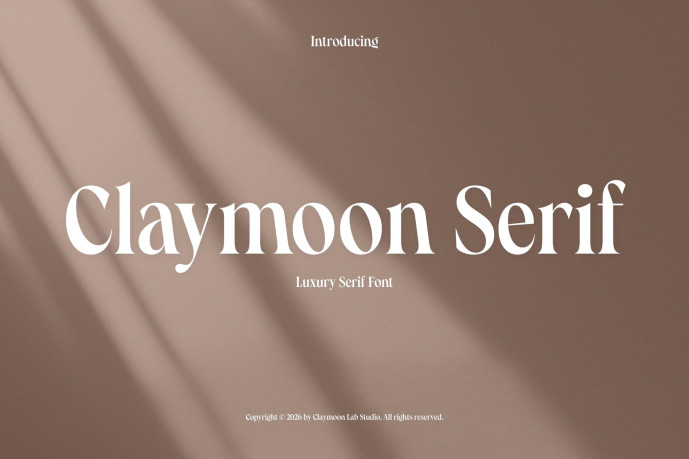
Claymoon Serif Font
Claymoon Serif Font, a high-contrast luxury serif typeface designed for creatives who demand sophistication without compromise. Featuring dramatically tapered strokes, gracefully curved terminals, and an elevated x-height that commands presence at any scale, Claymoon Serif carries the quiet confidence of a typeface born for the finest creative applications.
The carefully balanced contrast between hairline thins and bold thick strokes creates a dynamic visual rhythm that feels simultaneously timeless and contemporary — equally powerful as a towering display headline or refined body text in editorial compositions. Whether gracing the cover of a luxury publication, anchoring a high-end brand identity, or setting the tone for an intimate event invitation, Claymoon Serif performs with unwavering elegance.